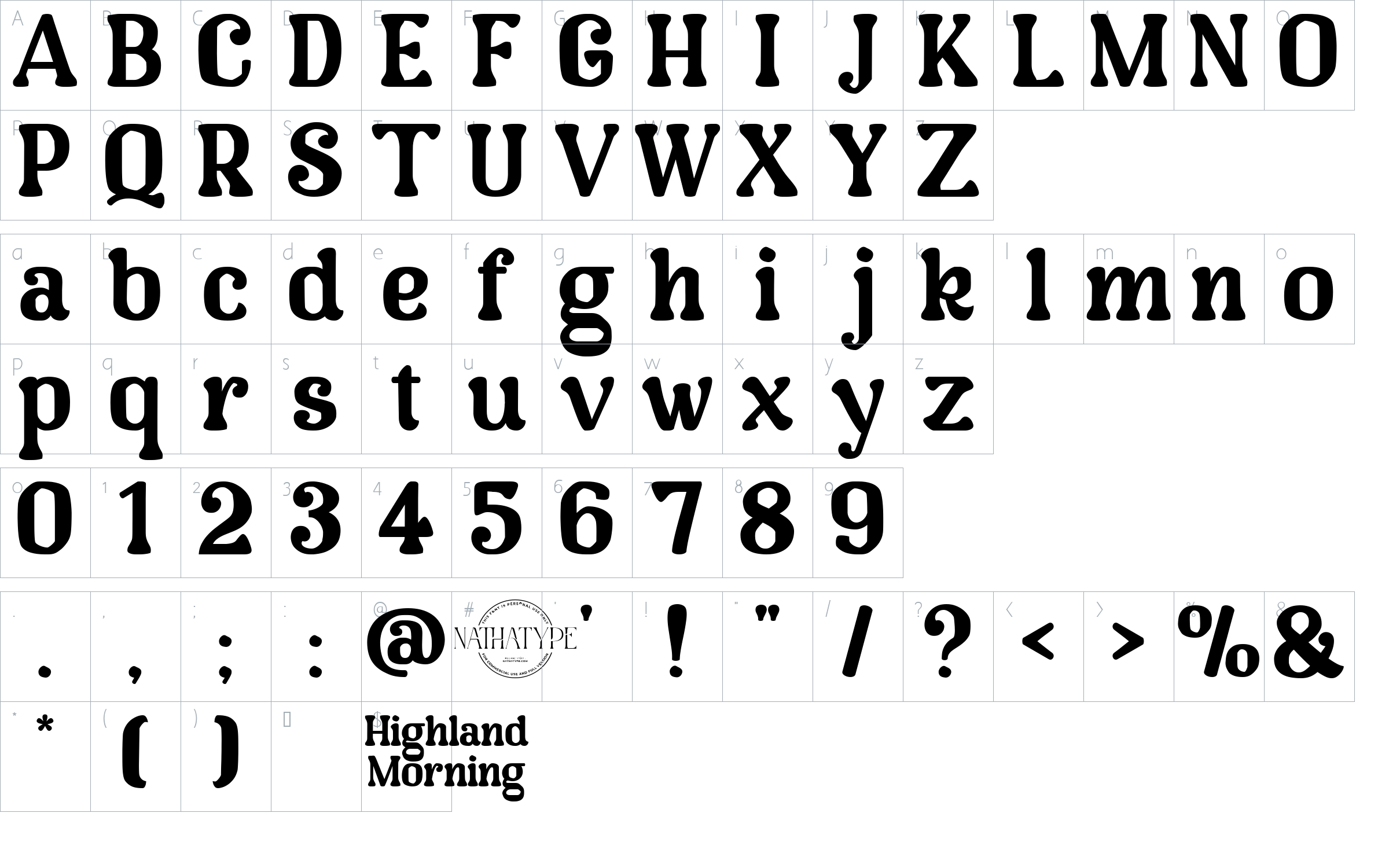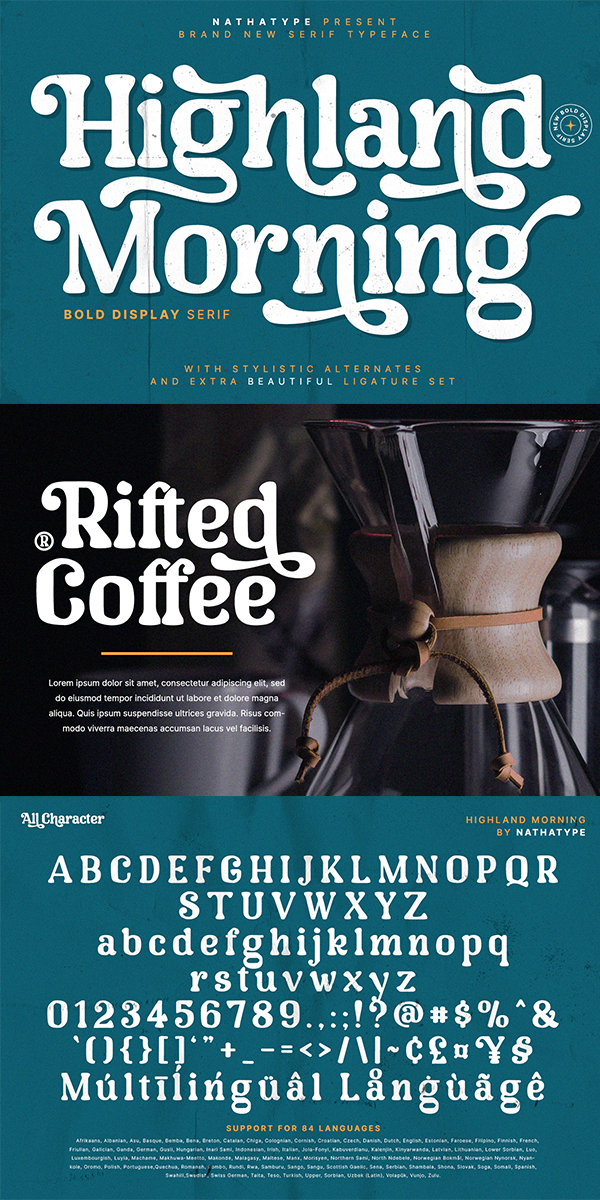
Highland Morning Font
About Highland Morning
Highland Morning is a thick weight serif font in slight watercolor or ink textures with fun retro nuance and complex styles. Its main characters are the addition of small lines/hooks on the top or bottom of the letter and the curvy ending wipes on some of the letters’ edges.
• Stylistic Sets
• Swashes